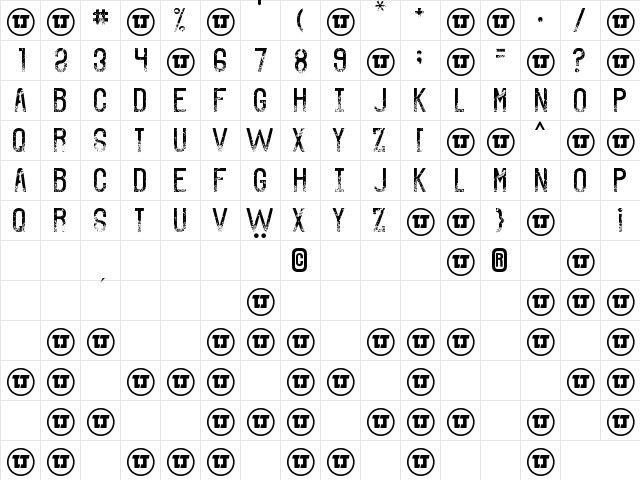
The Sound of Truth Grunge
| Style | Grunge |
| Foundry | LJ-Design Studios |
| Designer | Luis Jaramillo |
Design Context for The Sound of Truth Typeface
The Sound of Truth embraces imperfection — its rough, textured character adds raw authenticity to designs that want to feel lived-in and unconventional.
A strong fit for alternative music projects, graffiti-adjacent design, and anything that deliberately resists polish.
Pro Tip: Use The Sound of Truth at larger sizes where the texture and irregularity of each letterform can be clearly seen — it loses its character at small sizes.